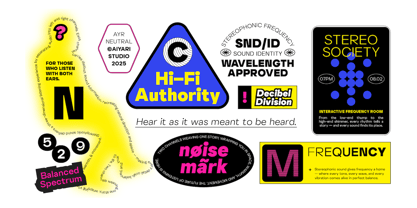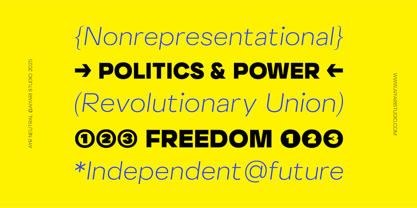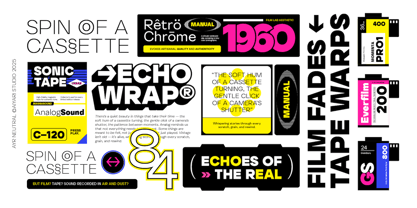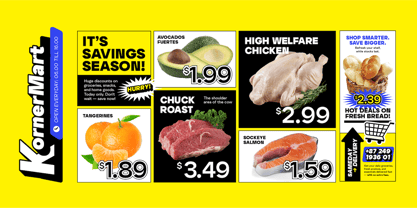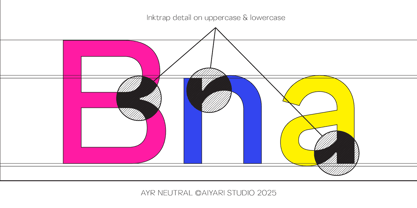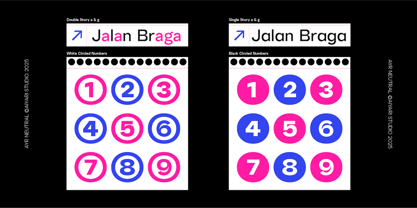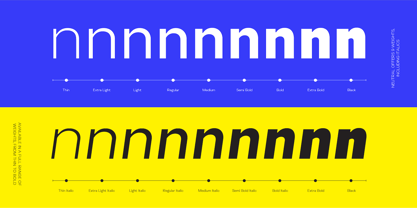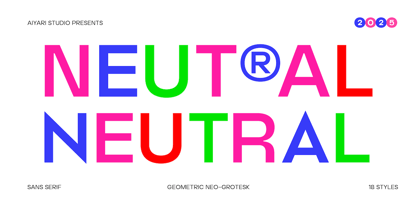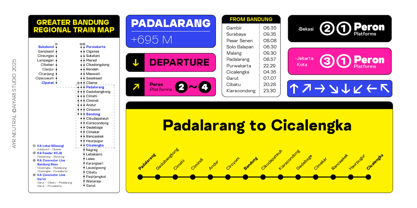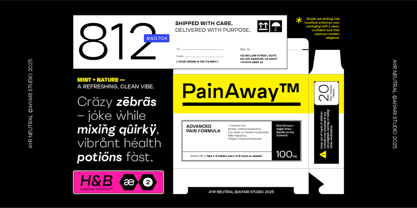
Ayr Neutral
The Ayr Neutral Font Family was designed by Ricky Rinaldi, Aprian Sembada and published by Aiyari. Ayr Neutral contains 18 styles and family package options. More about this family
Every patisserie has its staple, the kind of creation that might look simple but holds everything together. Neutral is that essential bake: the white bread, the plain croissant, the quiet hero that lets every other flavor shine. It is dependable, balanced, and crafted to perfection. As our very first geometric Neo-Grotesk, it delivers clarity and purpose with the ease only true craftsmanship can bring. With 18 weights and matching italics, Neutral offers structure and flexibility in equal measure. Its close apertures keep every detail legible, while stylistic alternates give designers a touch of freedom to shape their own voice. Neutral isn’t here to steal attention; it’s here to make everything around it better. A timeless foundation, baked to perfection.